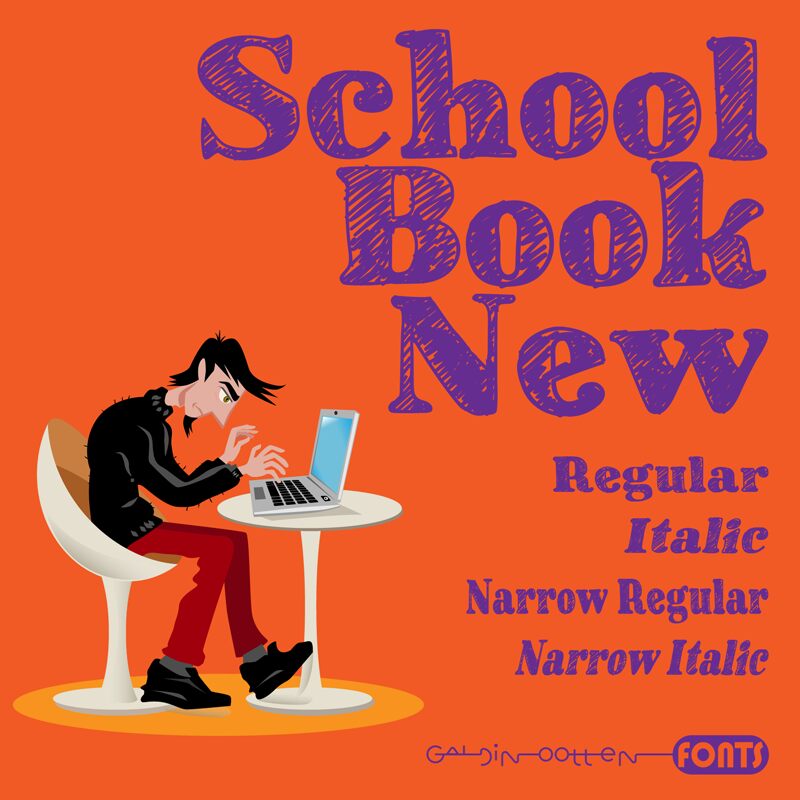
School Book New Narrow
School Book New Narrow, by Galdino Otten Fonts, is a textured display font with an eroded look that’s characterized by its vintage feel and sketch-like appearance. The font has an academic vibe and features bold weights. It belongs to the school book new family, as evidenced by its name.
Various uses of this free artistic typeface include posters, stationery cards, logos, branding projects, website/blog design templates, advertisements and promotional flyers. Other possible uses are projects related to schools/universities such as textbooks or posters/advertisements. Its hand-drawn style can work great as a text overlay on images for various online platforms like Instagram/Facebook posts or personal blogs.